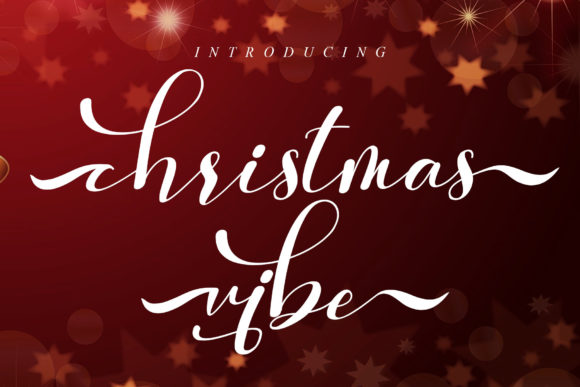
The Christmas Vibe Font
Indulge in the enchanting allure of The Christmas Vibe Font, a captivating script that weaves a spell of festive charm.
Picture your most heartfelt holiday creations adorned with this exquisite font, transforming them into captivating masterpieces. The Christmas Vibe is the perfect dance partner for wedding programs, whispering the promise of a magical celebration. Its graceful strokes evoke a touch of nostalgia, like a favorite Christmas carol that warms the soul.
Step into a world of boundless creativity, where The Christmas Vibe Font becomes your artistic muse. Its effortless elegance will elevate your logos to new heights, adding a touch of sophistication to your brand identity. Whether you're crafting heartfelt quotes or designing captivating posters, this font will ignite your imagination and leave a lasting impression.
The Christmas Vibe Font is a gift that keeps on giving, offering you a treasure trove of glyphs and swashes at your fingertips. Unleash your inner artist and explore the endless possibilities, creating designs that will make hearts skip a beat and memories that will last a lifetime.